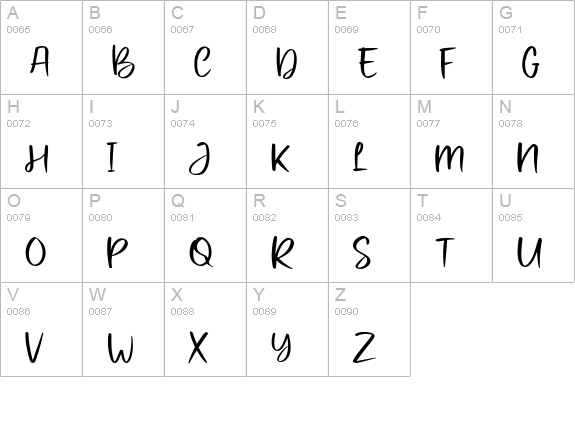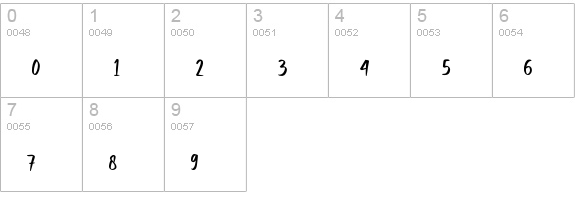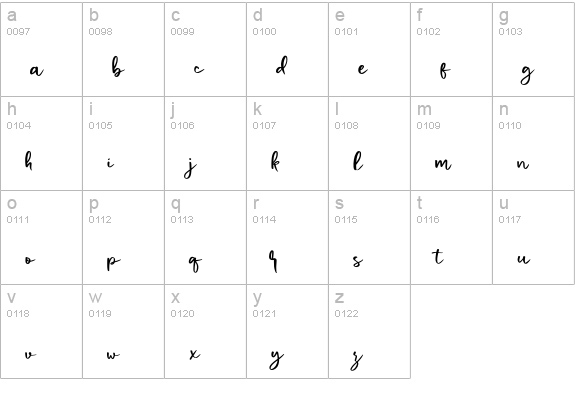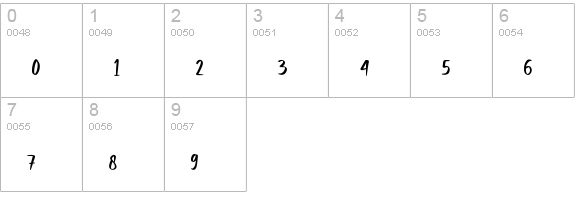
alpiar Font Details
Alpiar Font is a stunning typeface that exudes elegance and sophistication. With its sleek lines and modern design, Alpiar Font is perfect for adding a touch of refinement to any project. This versatile font is ideal for creating stylish logos, branding materials, invitations, and more. The best part? Alpiar Font is completely free to download at FontsMarket.com. So why wait? Add a touch of class to your designs with Alpiar Font today!